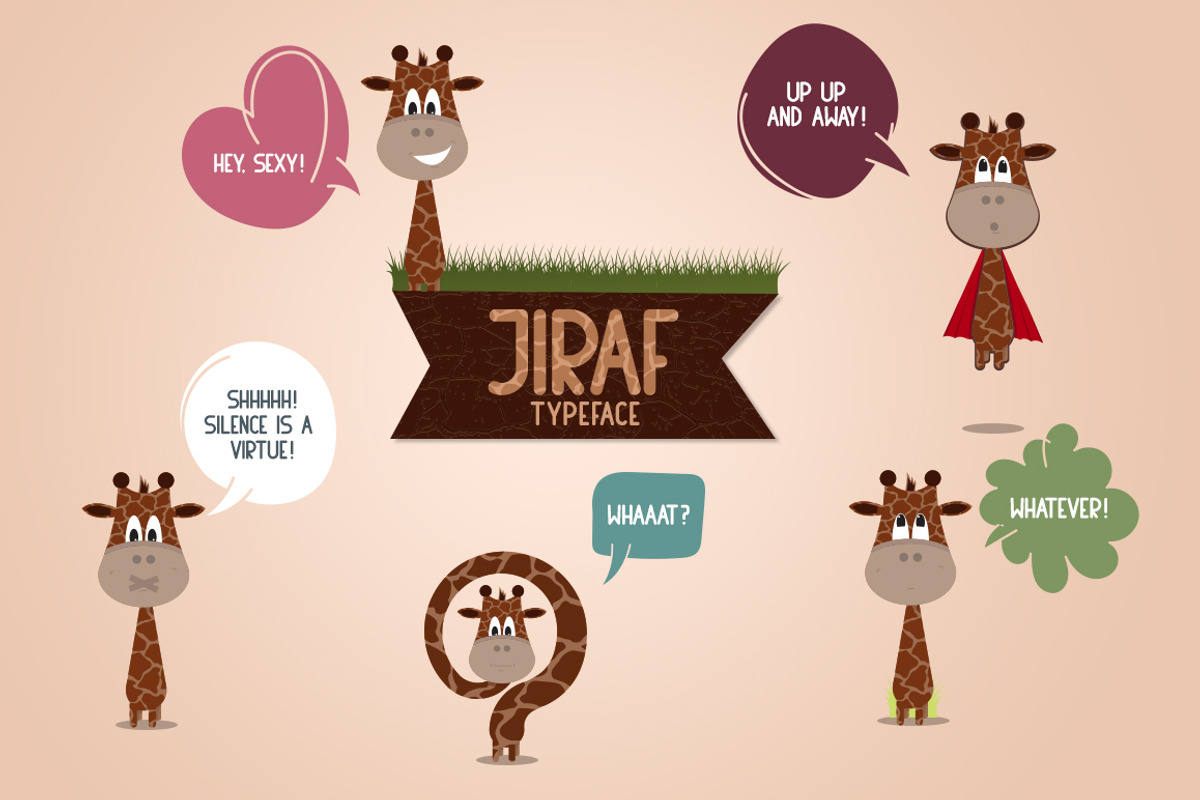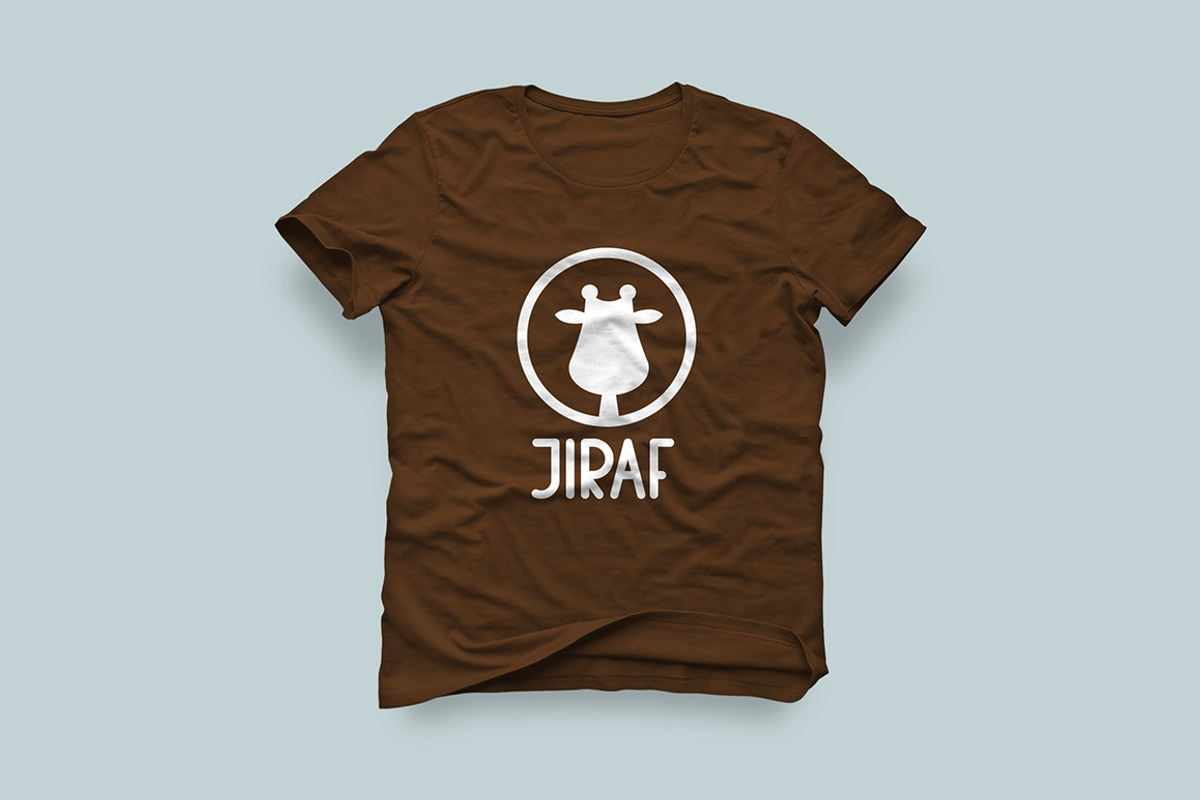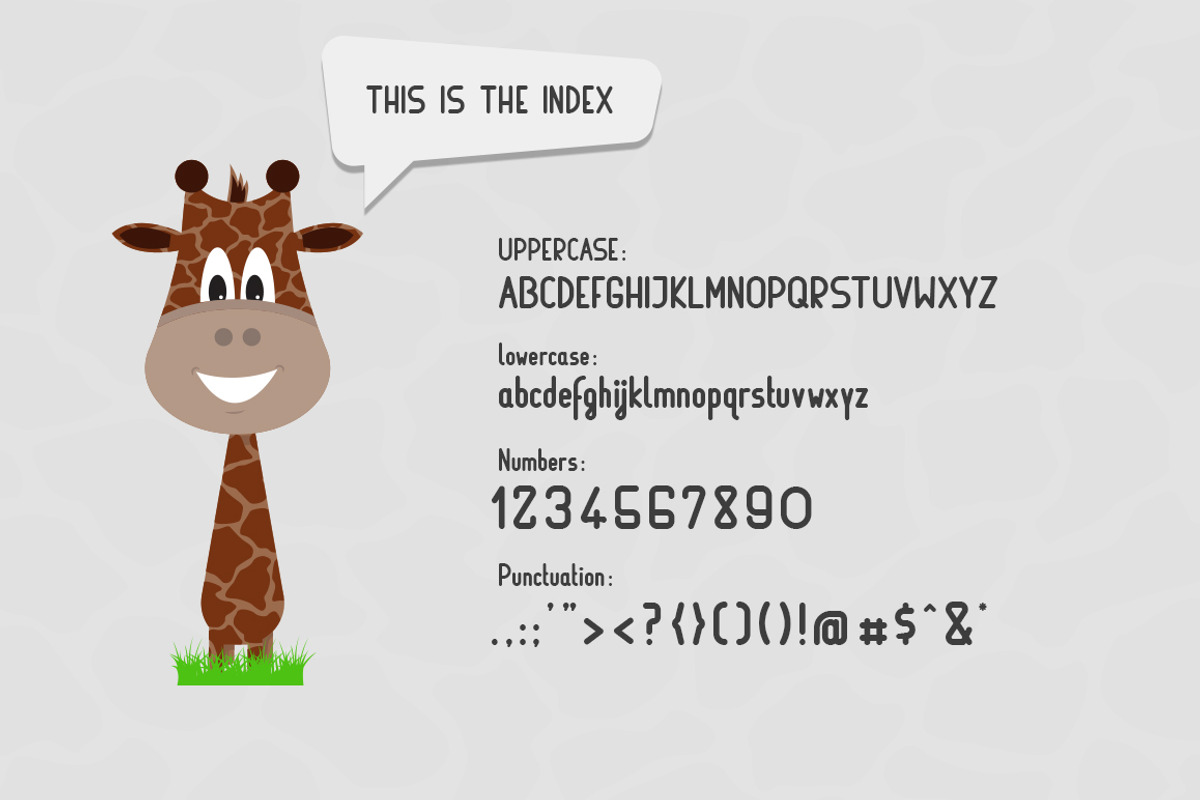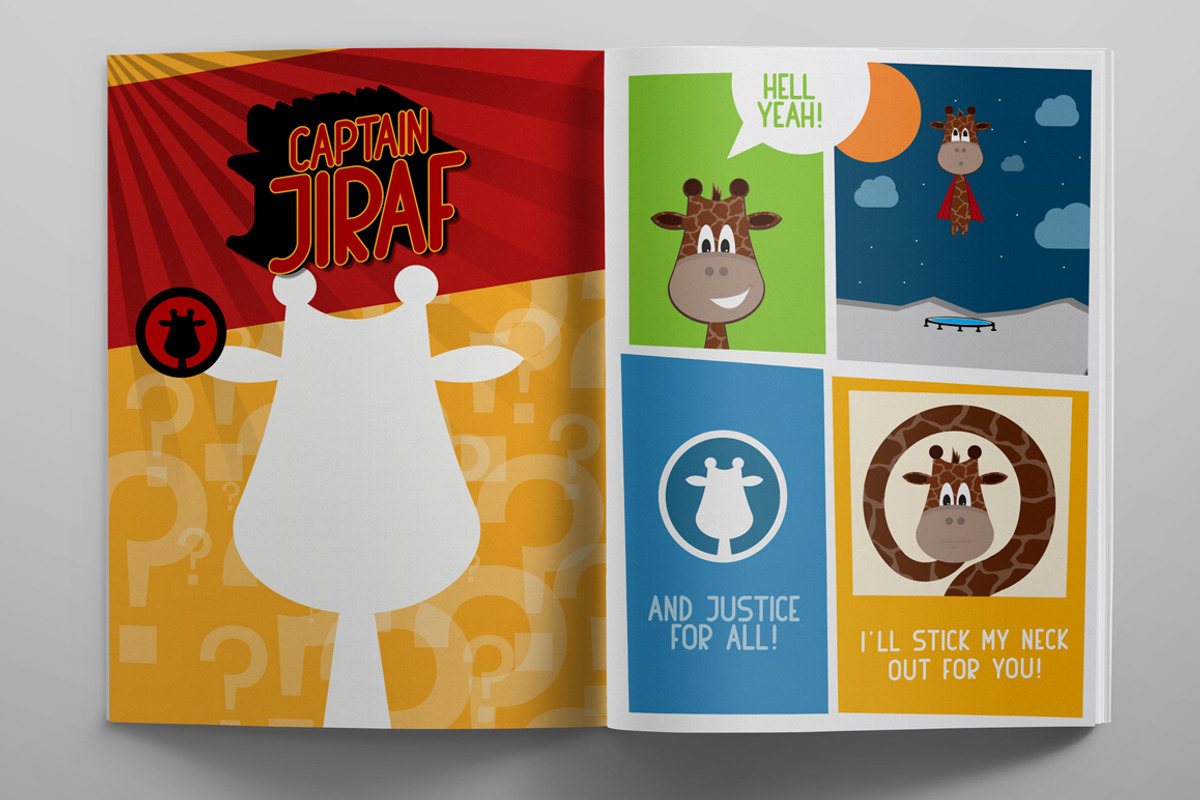
Jiraf Typeface
Jiraf Typeface by 28ink is a font selected for branding, posters, packaging, typography.
Why Jiraf Typeface is worth a look
Jiraf Typeface by 28ink fits naturally into Branding, posters, packaging, typography.